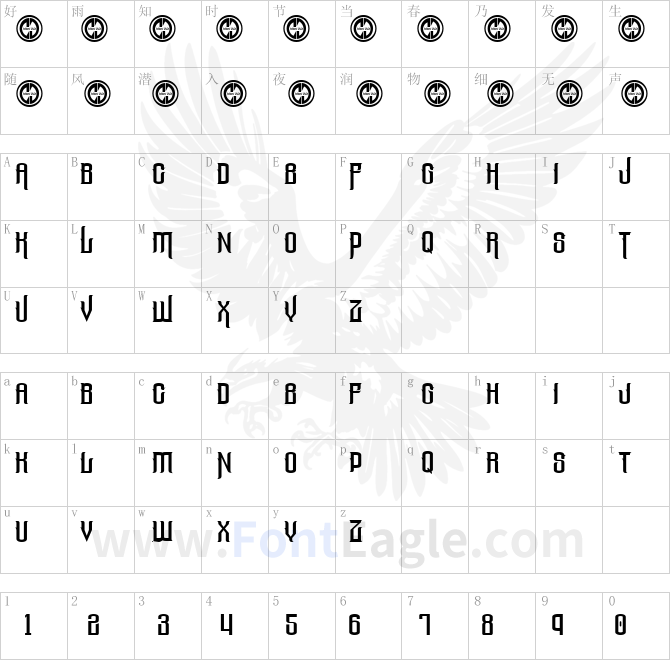
- Font name:The Lost Canyon
- Font Subfamily ID:The Lost Canyon:Version 1.00
- Font Full Name:The Lost Canyon
- Font Version:Version 1.00 July 13, 2016, initial release
- Postscript:TheLostCanyon